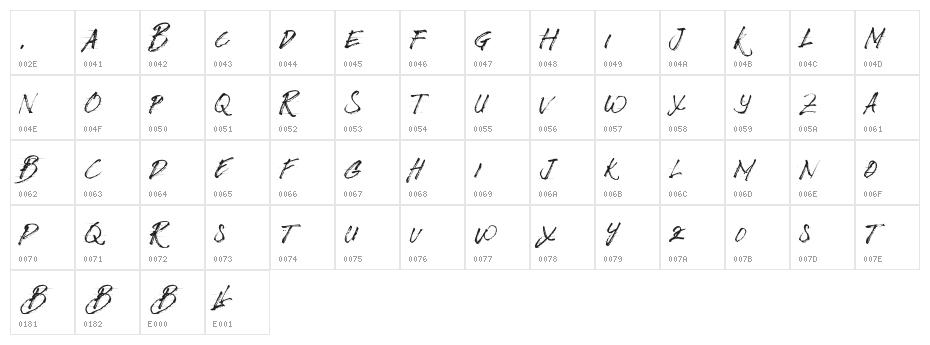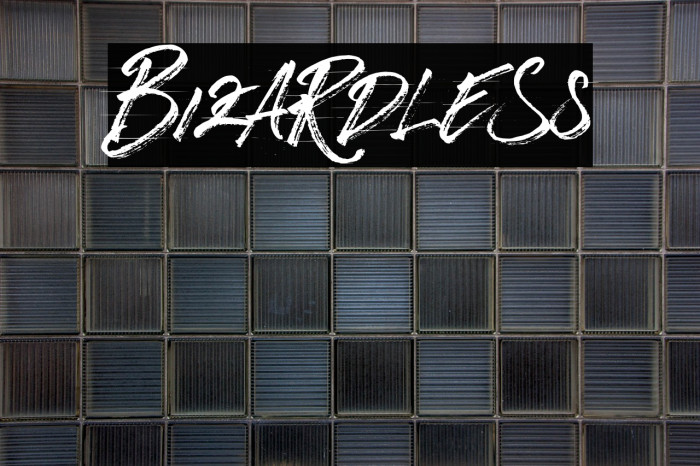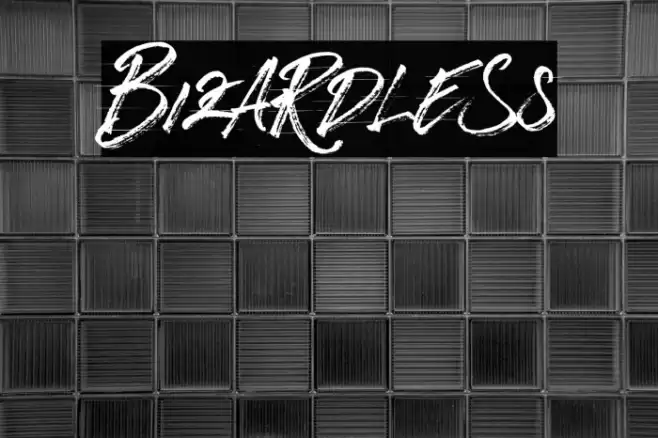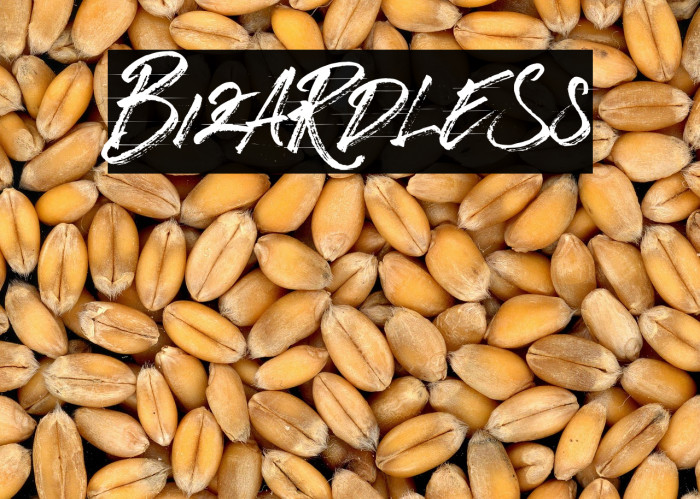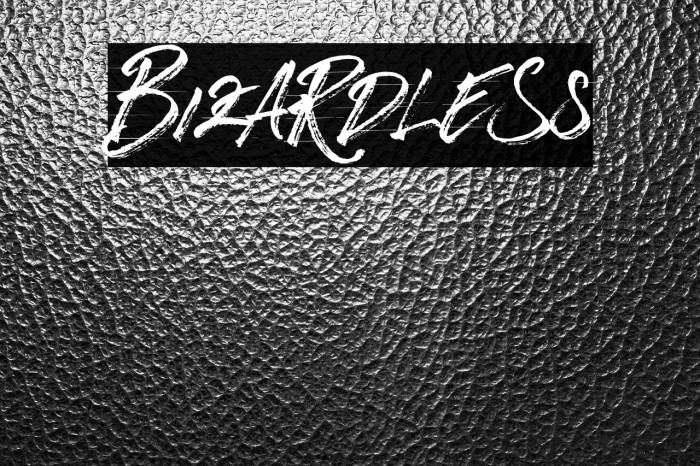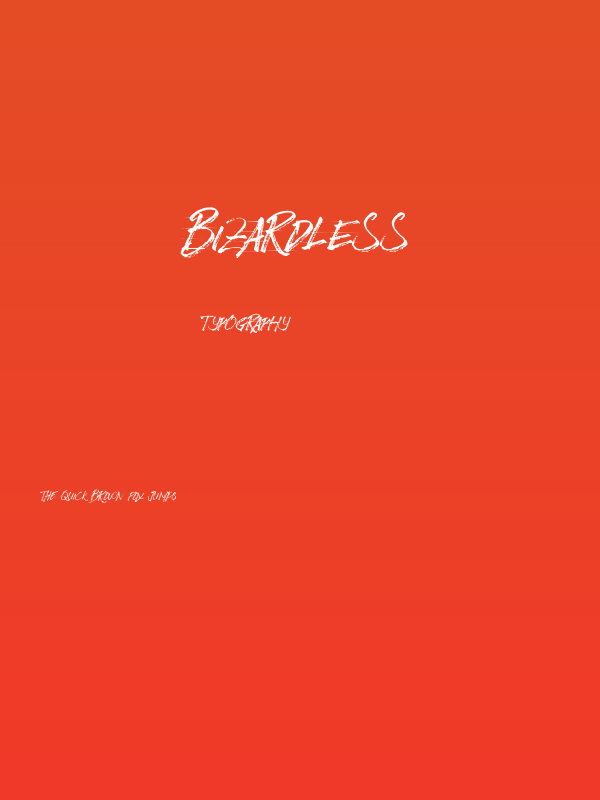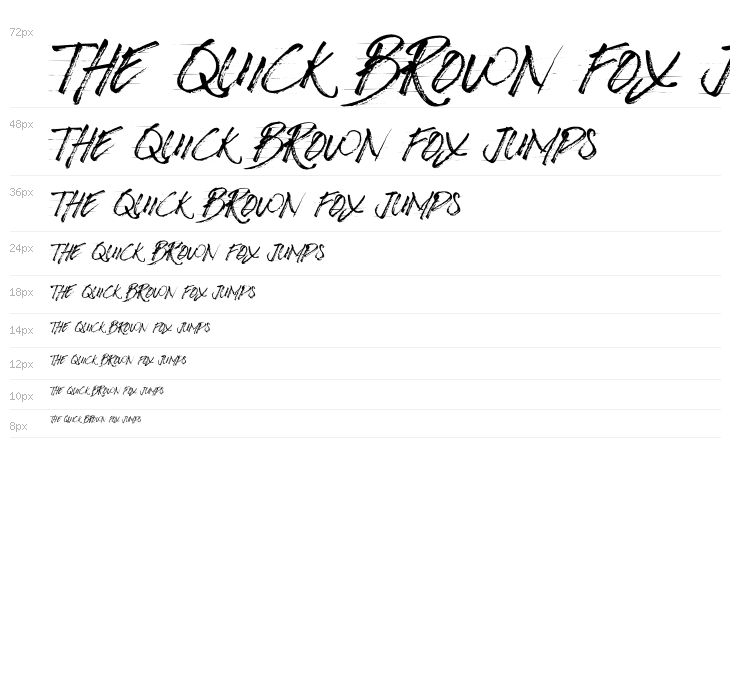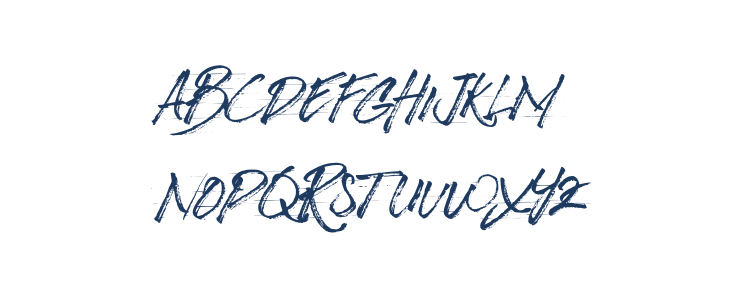
BizardleSs Font
BizardleSs Description
This font features a dynamic and energetic script style, characterized by its bold, brush-like strokes that convey a sense of movement and flair. The uppercase and lowercase letters are crafted with a sense of spontaneity, resembling hand-drawn calligraphy with a modern twist. The strokes vary in thickness, adding a textured and artistic feel to the text. This font is ideal for projects that require a personal touch or an expressive, creative aesthetic. Its unique style makes it suitable for branding, posters, and artistic designs where a bold statement is needed.
| Use Case | Logos, Headlines, Artistic Designs |
| Proposed Projects | Ideal for branding, artistic posters, creative invitations, and expressive design projects. |